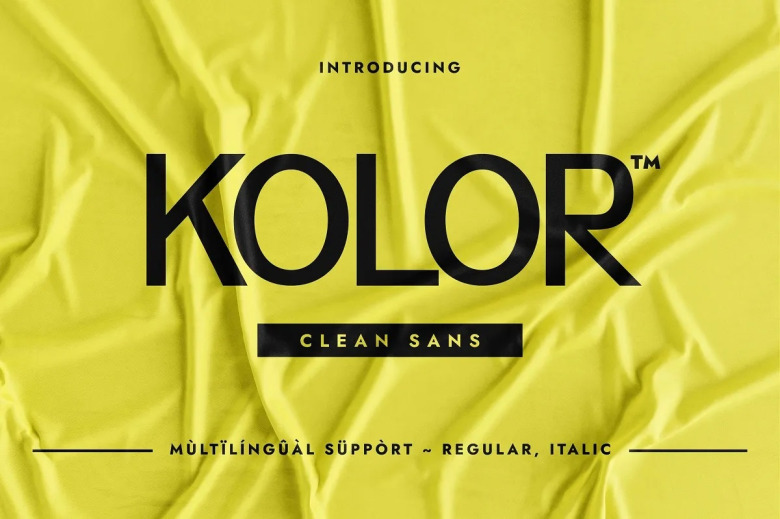
Kolor Font
Kolor is a minimalistic, clean, and geometric sans-serif typeface. A simple and geometric glyphs construction make it a proper choice for multiple themes such as poster design, packaging design, perfume, cosmetics, flyers, business cards, invitations, and others.
Kolor Sans Serif Font